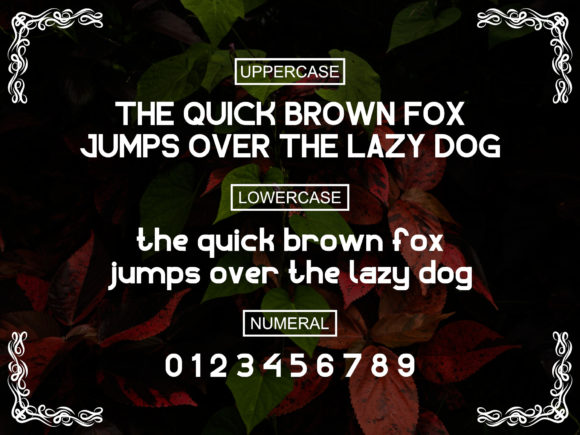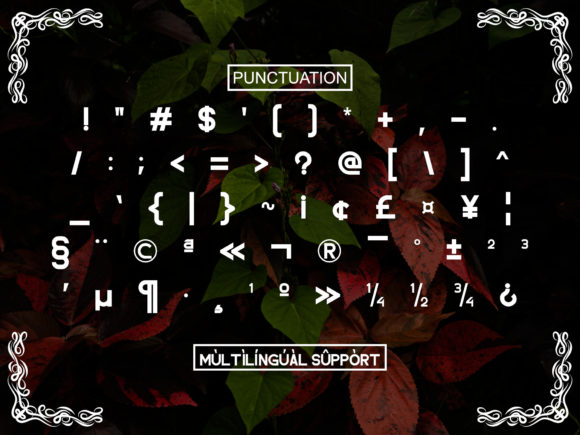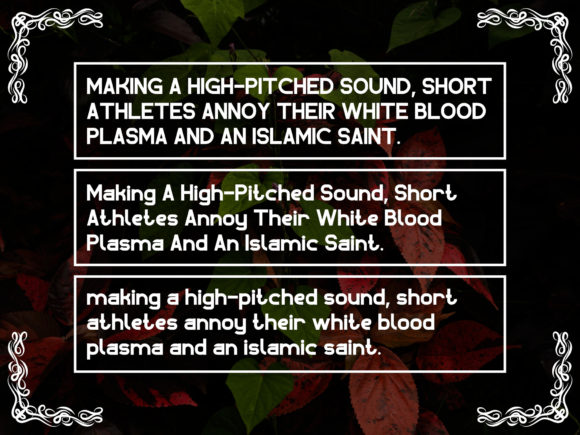
Introduction to Ergodiva Font
Remember that moment when you’re brainstorming ideas for a new creative project, and you just can’t seem to find the right font to bring everything together? It’s like trying to put together a puzzle, but the one piece that would make it all click is missing. That’s where the Ergodiva Font comes in – a high-quality, timeless sans serif font that can elevate your design to the next level.
With its smooth, clean lines and just the right amount of contrast, Ergodiva Font is perfect for logos, branding, and web headings. Its versatility and simplicity make it a valuable resource for designers looking to add a touch of sophistication to their creative projects. And the best part? Ergodiva Font is available for free download, making it an accessible design resource for anyone looking to take their designs to the next level.
Whether you’re working on a complex design project or just need a font to complement a simple idea, Ergodiva Font is a great choice. Its transparent background and clean lines make it easy to work with, and its timeless style ensures that it will never go out of fashion. In this article, we’ll take a closer look at the Ergodiva Font and explore its many uses and benefits.
Key Features of Ergodiva Font
- High-quality design: Ergodiva Font is a well-designed font that can be used for various creative projects, including logos, titles, and body text.
- High-resolution design: Ergodiva Font is designed at a high resolution, ensuring that it looks great even when scaled up or down.
- Unique characteristics: The font features a unique, modern design with clean lines and a minimalist aesthetic, making it perfect for a wide range of creative projects.
Honest Review: Ergodiva Font
I recently had the chance to work with the Ergodiva Font, and I must say it’s been a great addition to my design arsenal. As a designer, I’m always on the lookout for high-quality fonts that can elevate my creative projects. Ergodiva Font definitely fits the bill.
One of the things I love about this font is its versatility. It’s perfect for a variety of projects, from print to digital designs. The transparent background makes it easy to use on any design resource, whether it’s a background image or a complex layout.
- High-quality design with a modern feel
- Perfect for a wide range of creative projects
- Limited font styles (only 2-3 available)
- Not suitable for extremely large font sizes
Overall, I’m really impressed with the Ergodiva Font. It’s a solid choice for designers looking for a high-quality, versatile font. While it may have some limitations, it’s definitely worth checking out – especially since it’s available for free download.